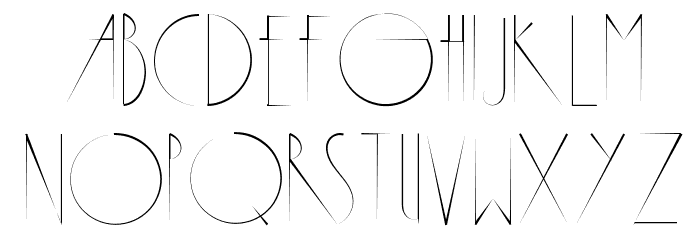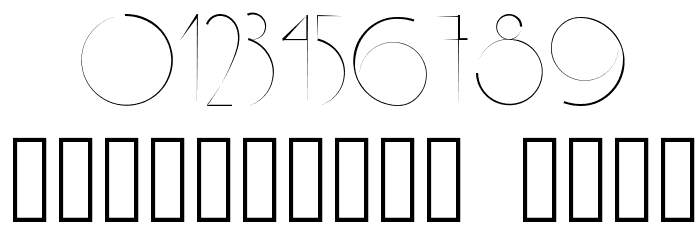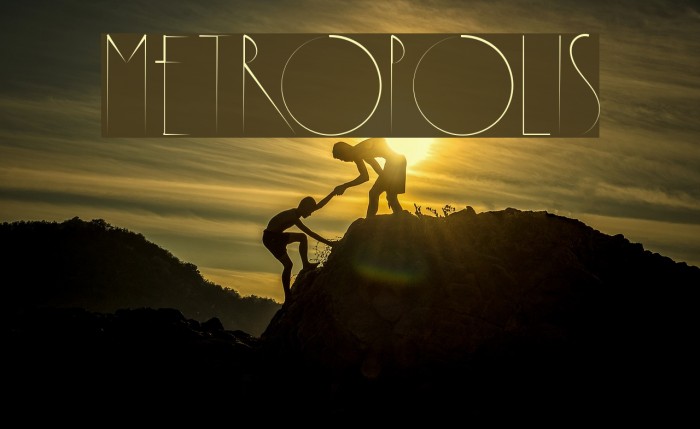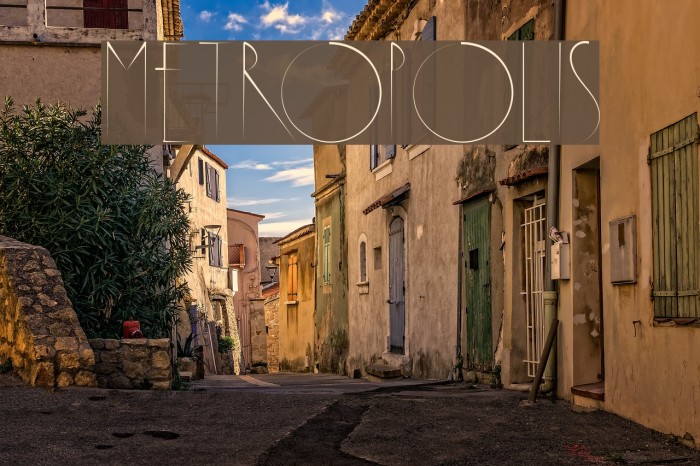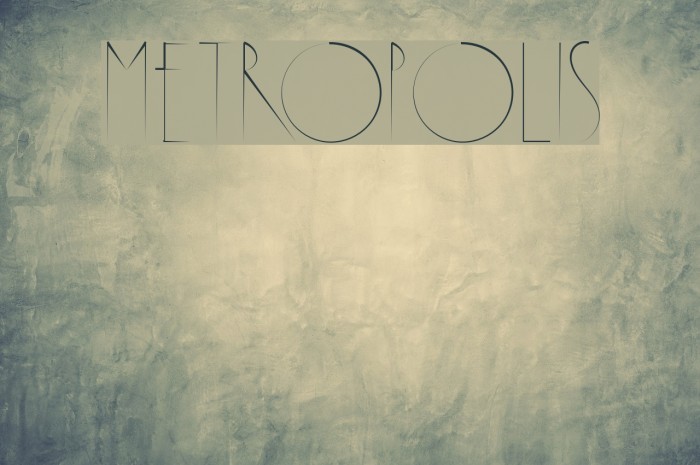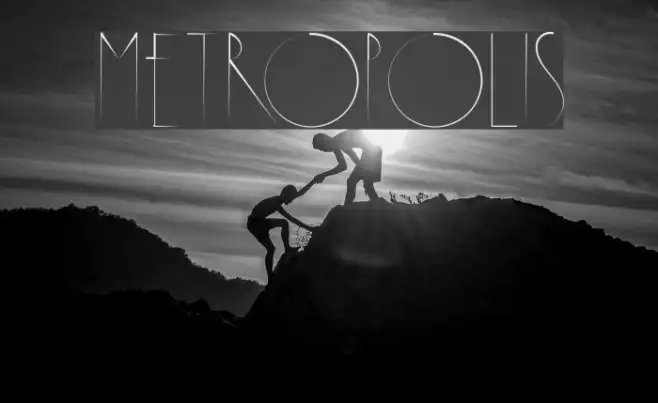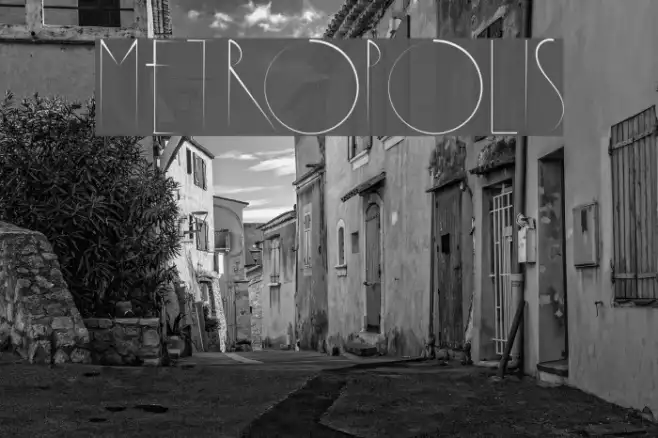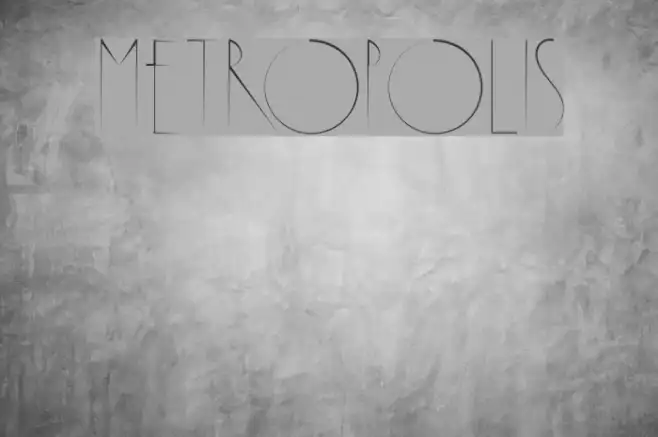
Metropolis Font
This font features a sleek, geometric design with a modern and minimalist aesthetic. The characters are characterized by their thin, elongated forms and sharp angles, creating a sense of elegance and sophistication. The uppercase letters are particularly striking, with a mix of straight lines and curves that give them a unique, art deco-inspired look. The lowercase letters maintain the same geometric style, ensuring consistency throughout the typeface. The numerals are similarly designed, with a clean and contemporary appearance. Overall, this font exudes a sense of modernity and style, making it suitable for a variety of design projects.
A sleek, geometric font with a modern, art deco-inspired design.
- Proposed Projects: Ideal for branding, editorial design, posters, and luxury product packaging.
- Overall Style: Modern, Art Deco
- Use Case: Headlines, Logos, Branding